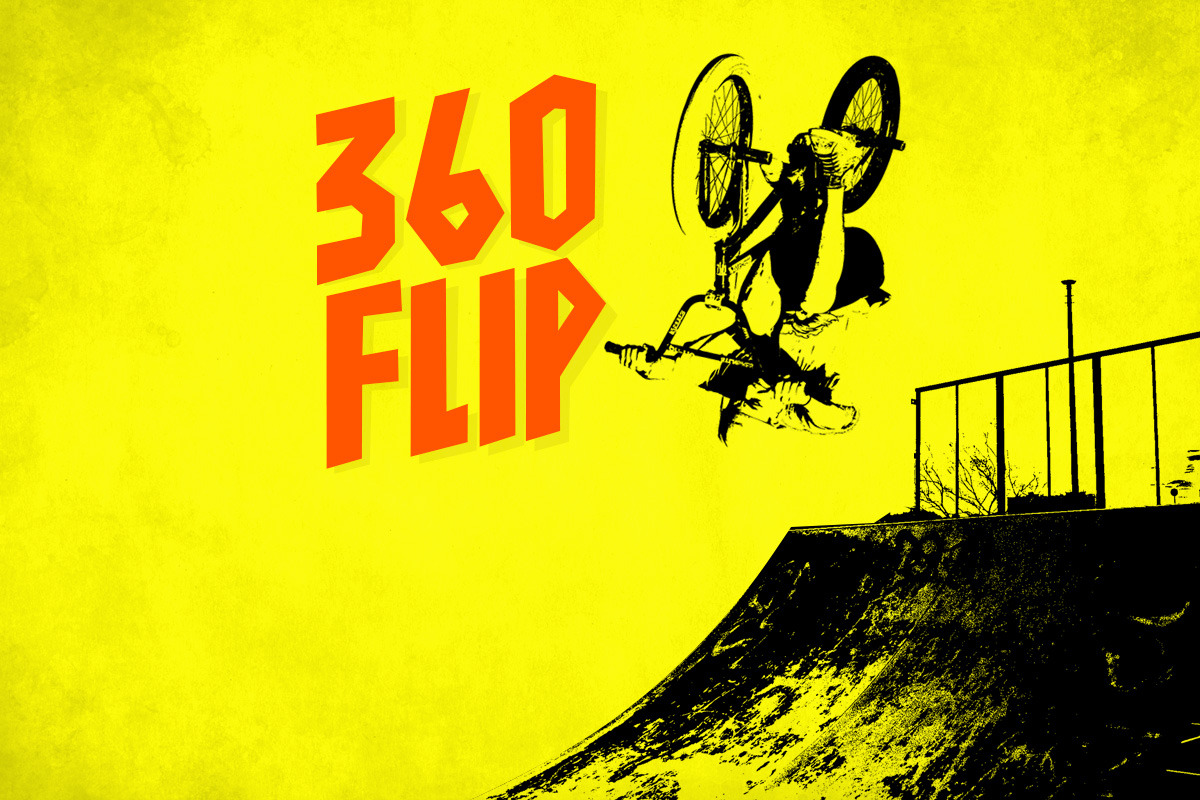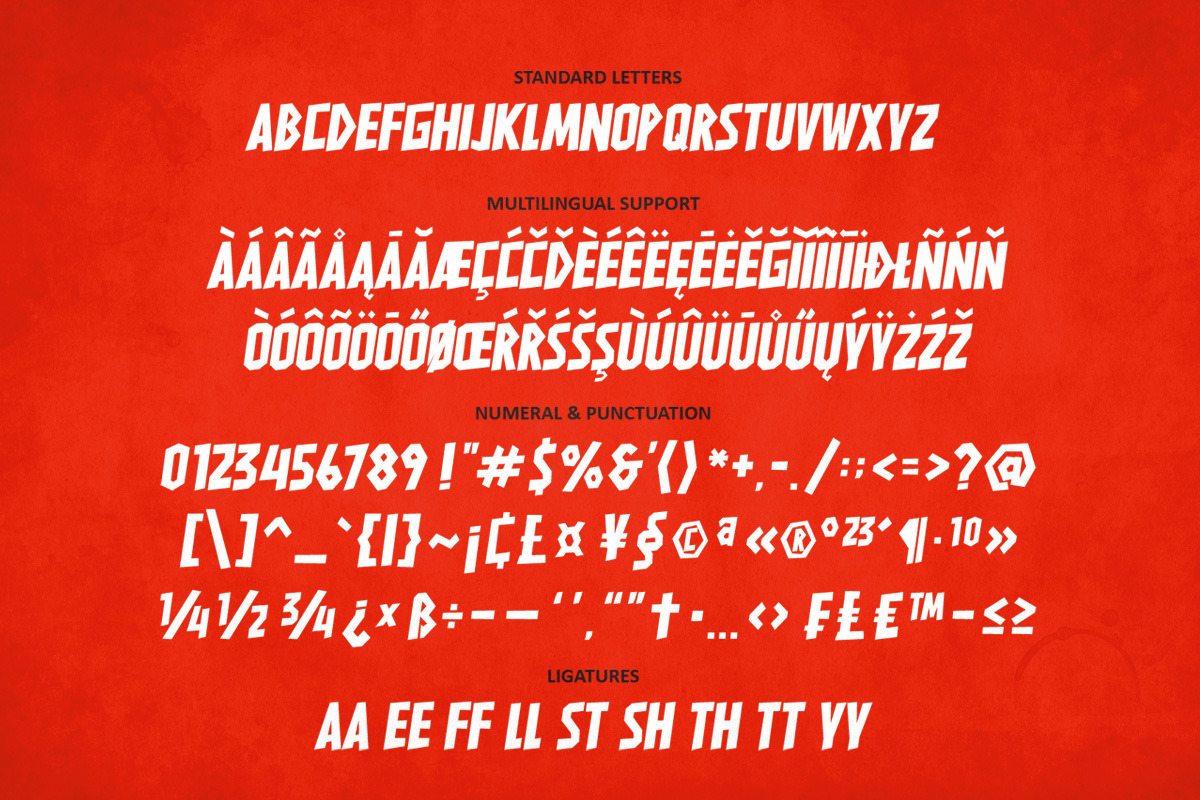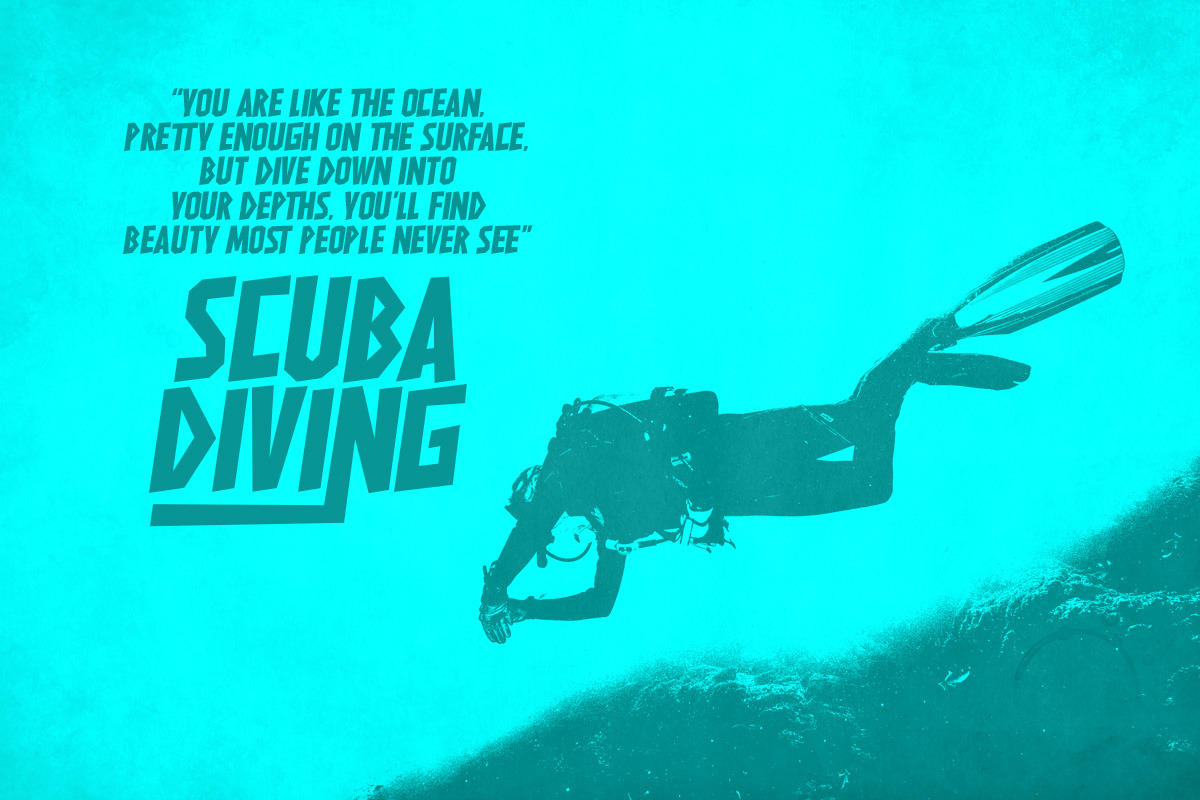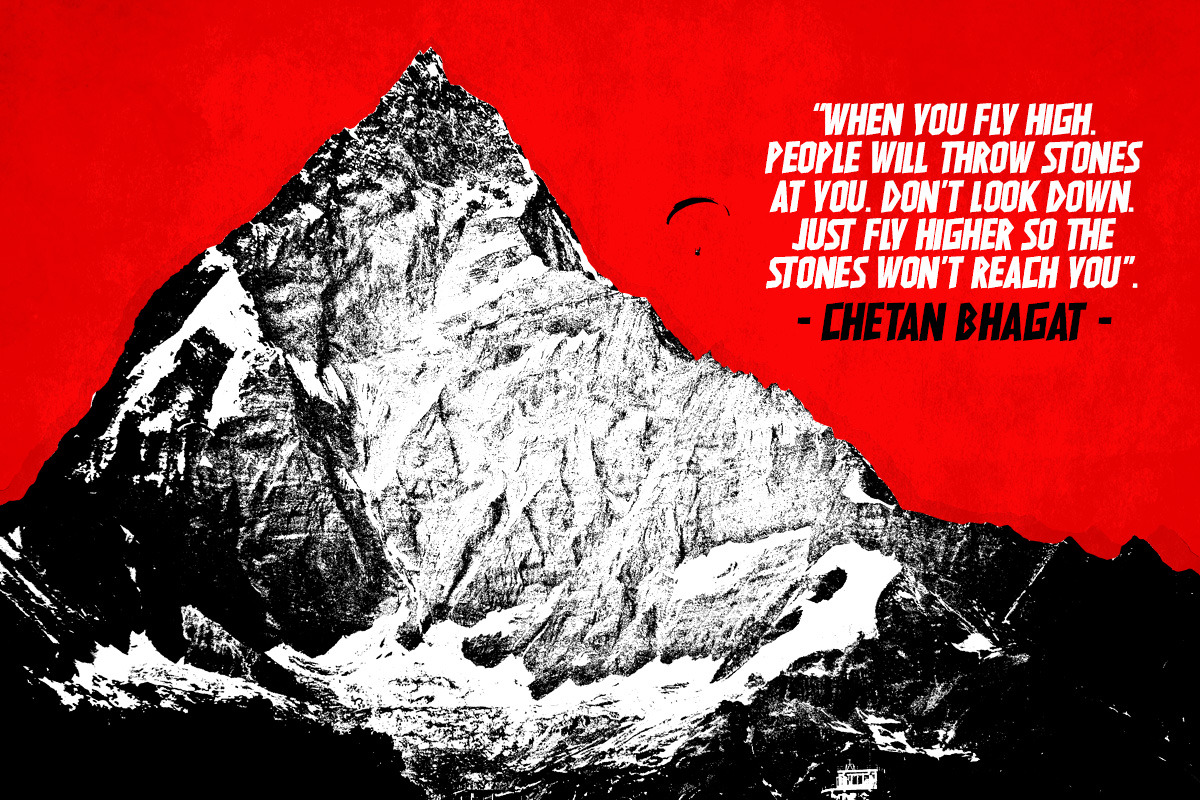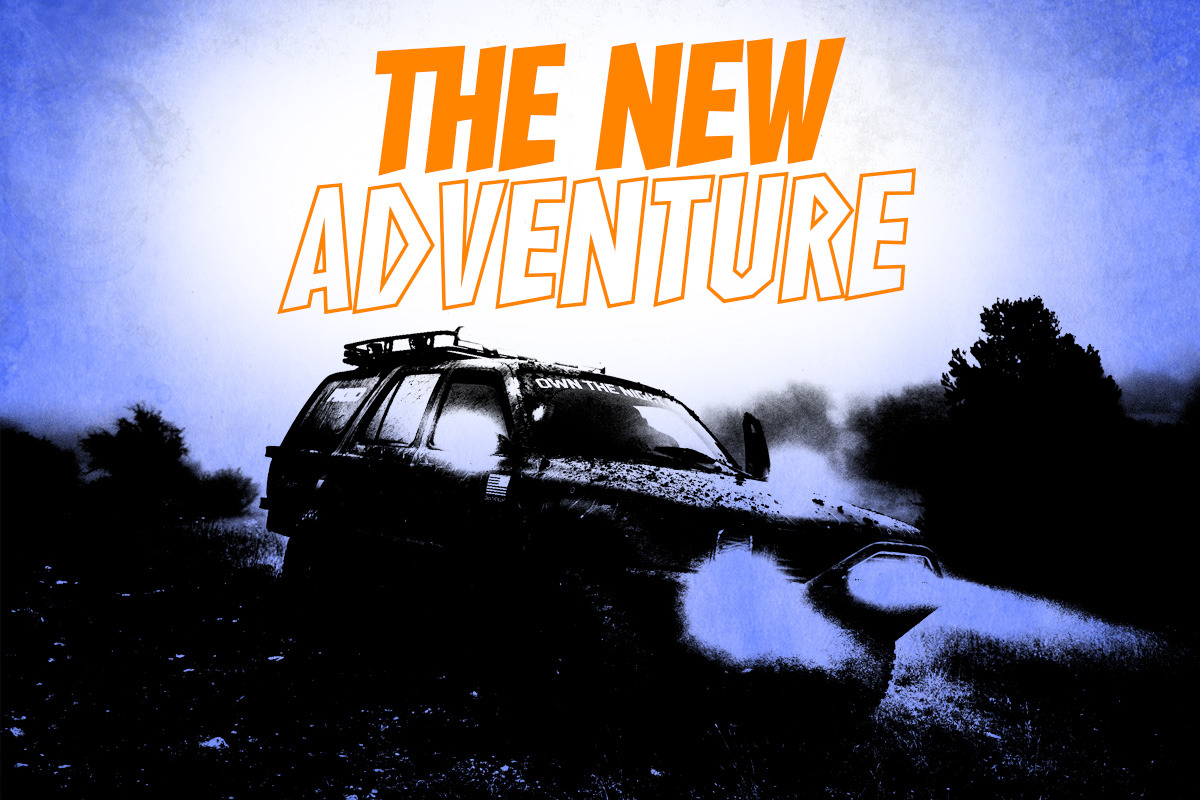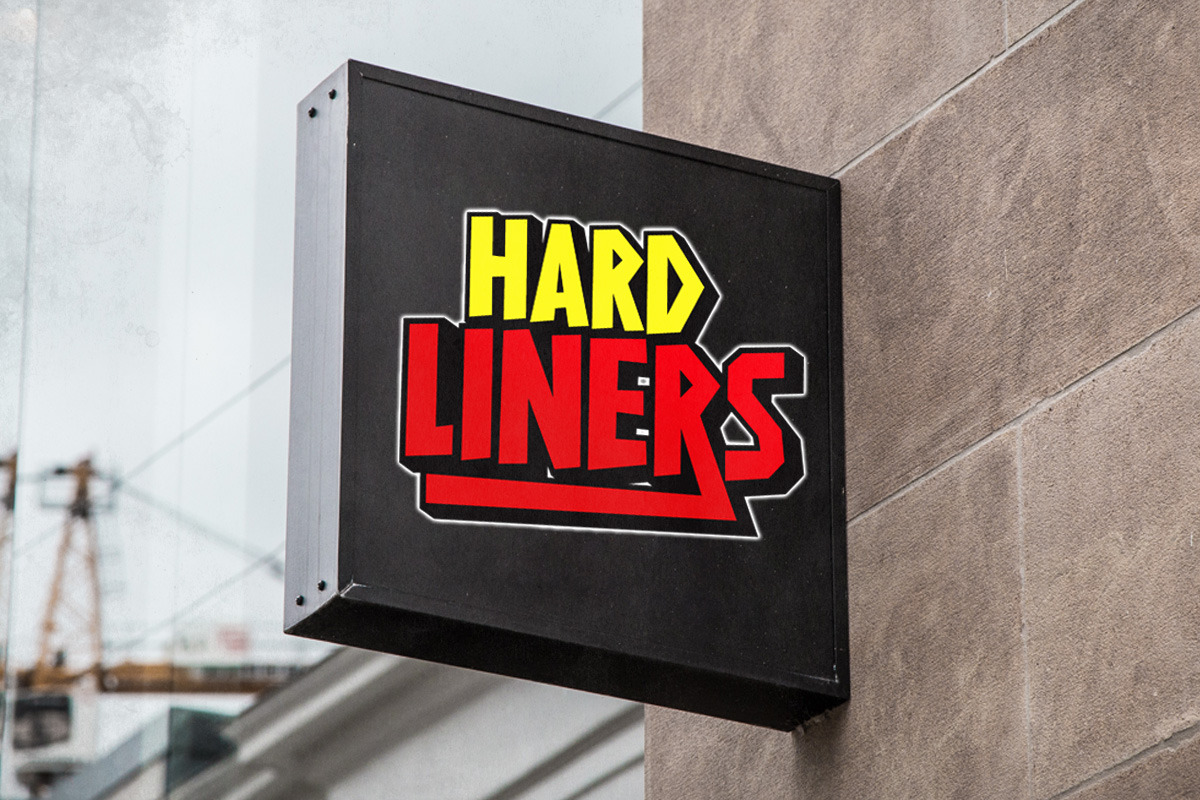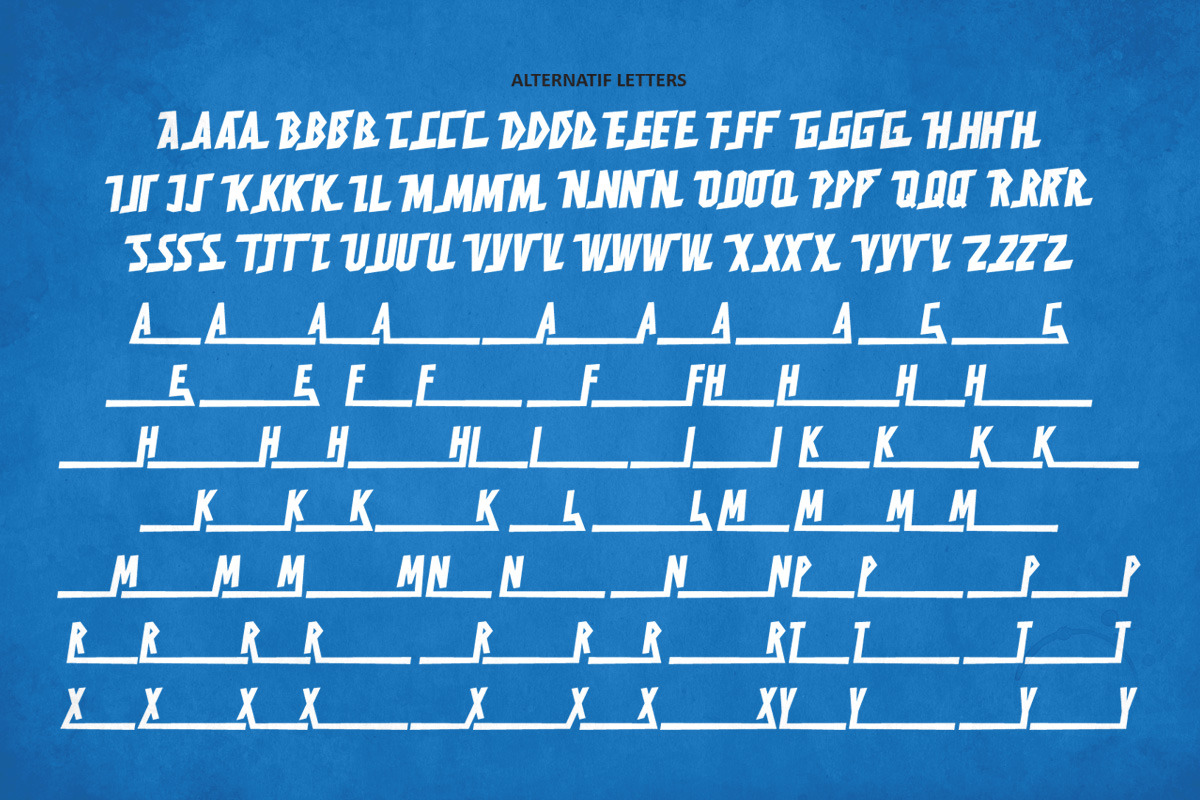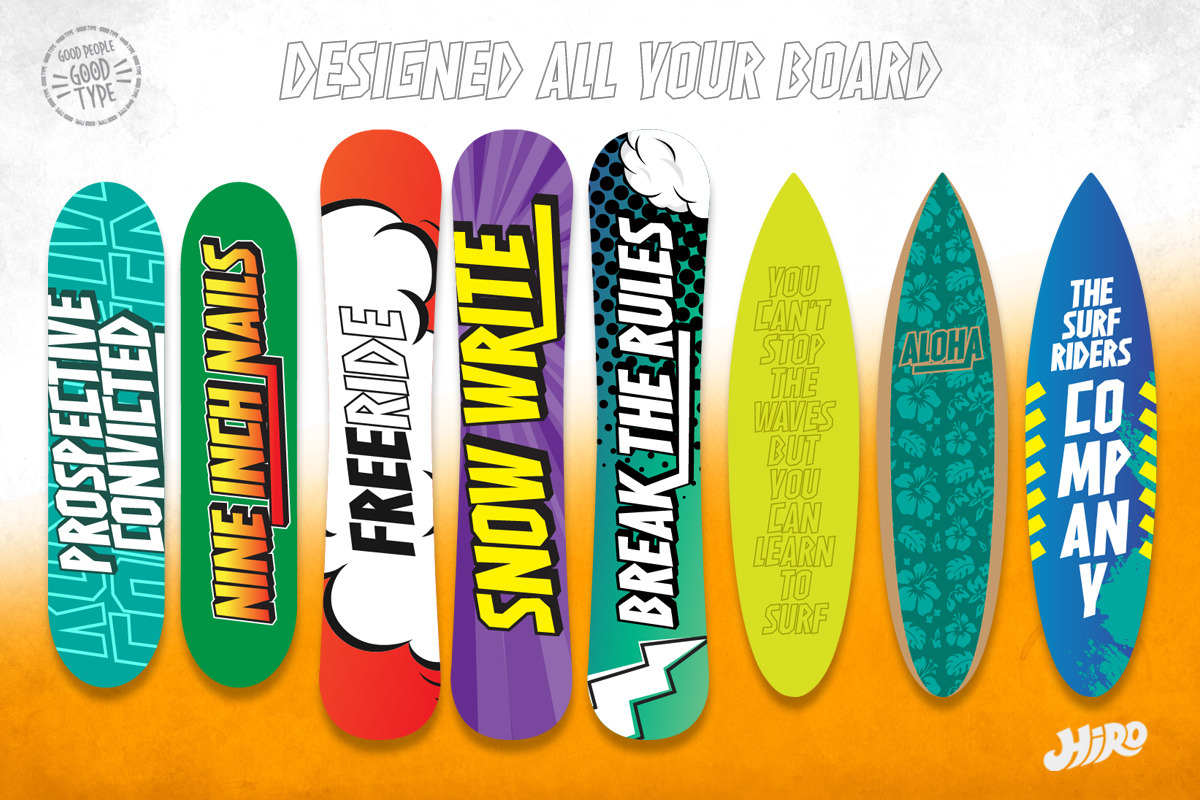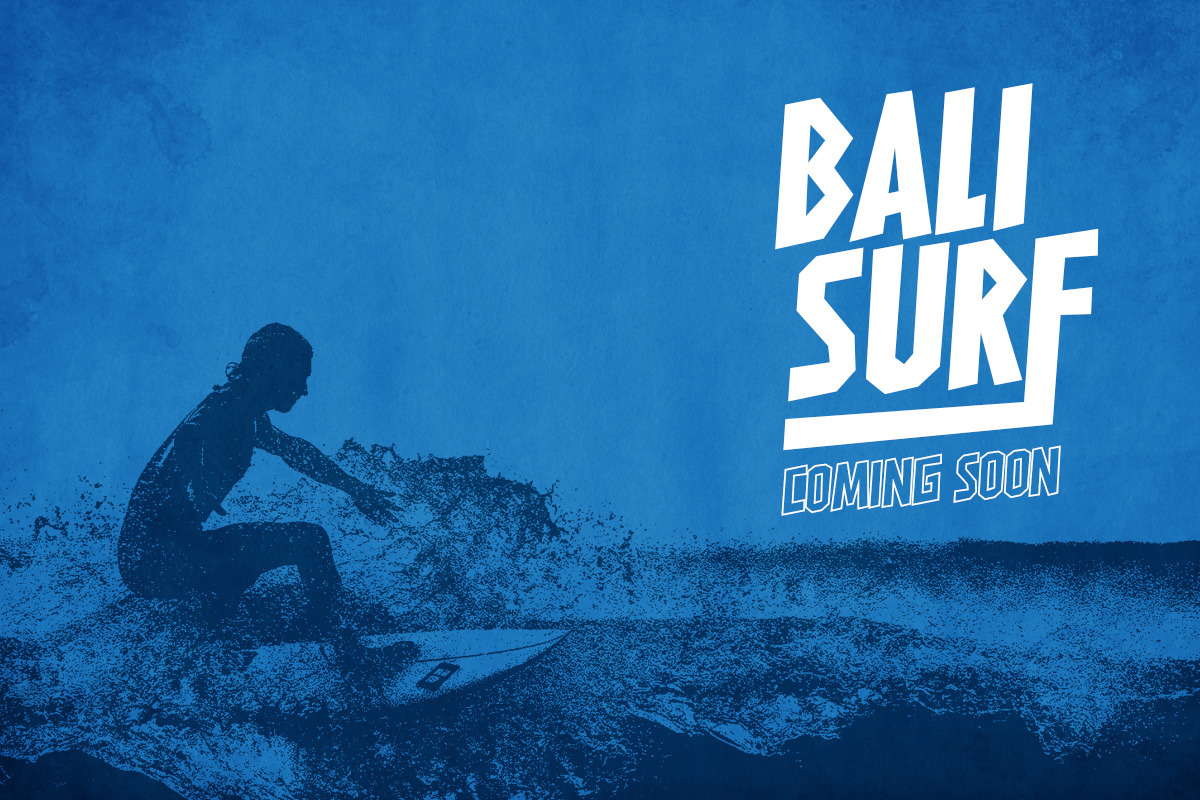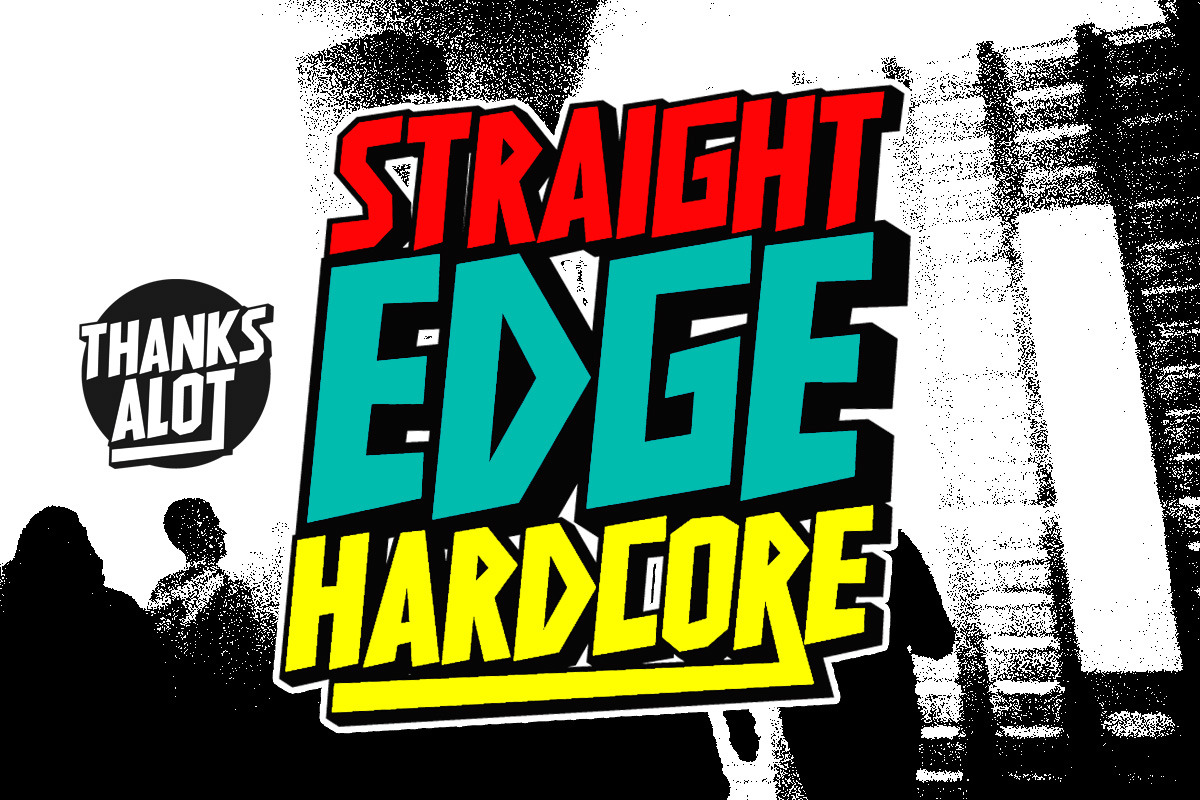
HARDLINERS - Extreme Games Font
HARDLINERS is a Display Font Combination (HARDLINERS Regular, HARDLINERS Extrude, HARDLINERS Shadow, HARDLINERS Outline, HARDLINERS other).
HARDLINERS has more than 637 Glyphs
This Font Template contains strong, cool, catchy and easy to use.
- Full Uppercase letters
USE HARDLINERS works great in any branding, logos, magazines, films, apparel, poster, and of course your board. The different weights give you full range to explore a whole host of applications, while the outlined fonts give a real modern feel to any project.